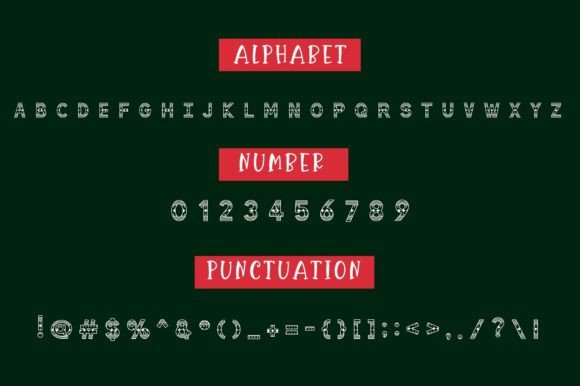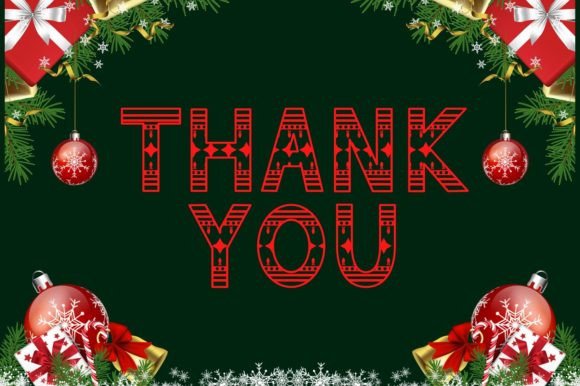
Introduction to Hey Xmas Font
Hey Xmas is a cute Christmas decorative font.
It embodies playfulness and authenticity and is the perfect choice for all your favorite projects, or even for blog posts, logos, branding, ads, invitations, greeting cards, planners, photo albums, decorations, and much more Add it to any of your designs, and enjoy the results.
Hey Xmas Font offers exceptional quality and versatility, making it a valuable addition to your design toolkit. Whether you’re creating for personal projects or commercial use, Hey Xmas Font delivers professional results.